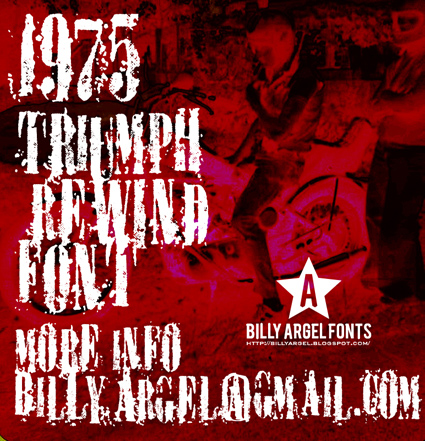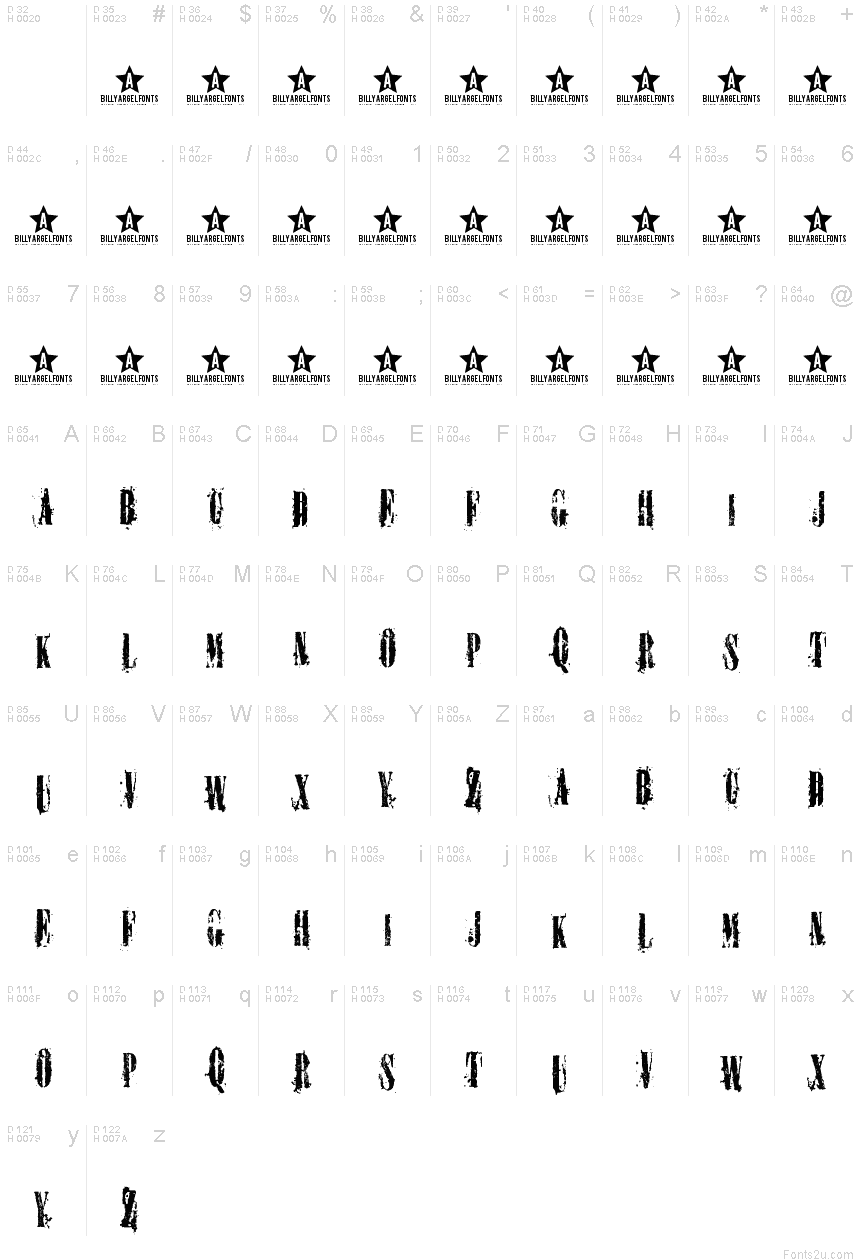
Triumph Rewind by Billy Argel is a free distorted and eroded display font with tall, tightly packed capitals. Its battered surfaces leave deep chips, scratches, and broken edges across nearly every stroke. Some letters look almost torn apart.
A horror attraction, underground music label, or distressed apparel brand could use this lettering to build a harsh, damaged identity. On posters and album covers, the broken forms can become part of the artwork itself, echoing ripped paper, worn ink, or photocopied textures rather than serving as neutral type in the final image.